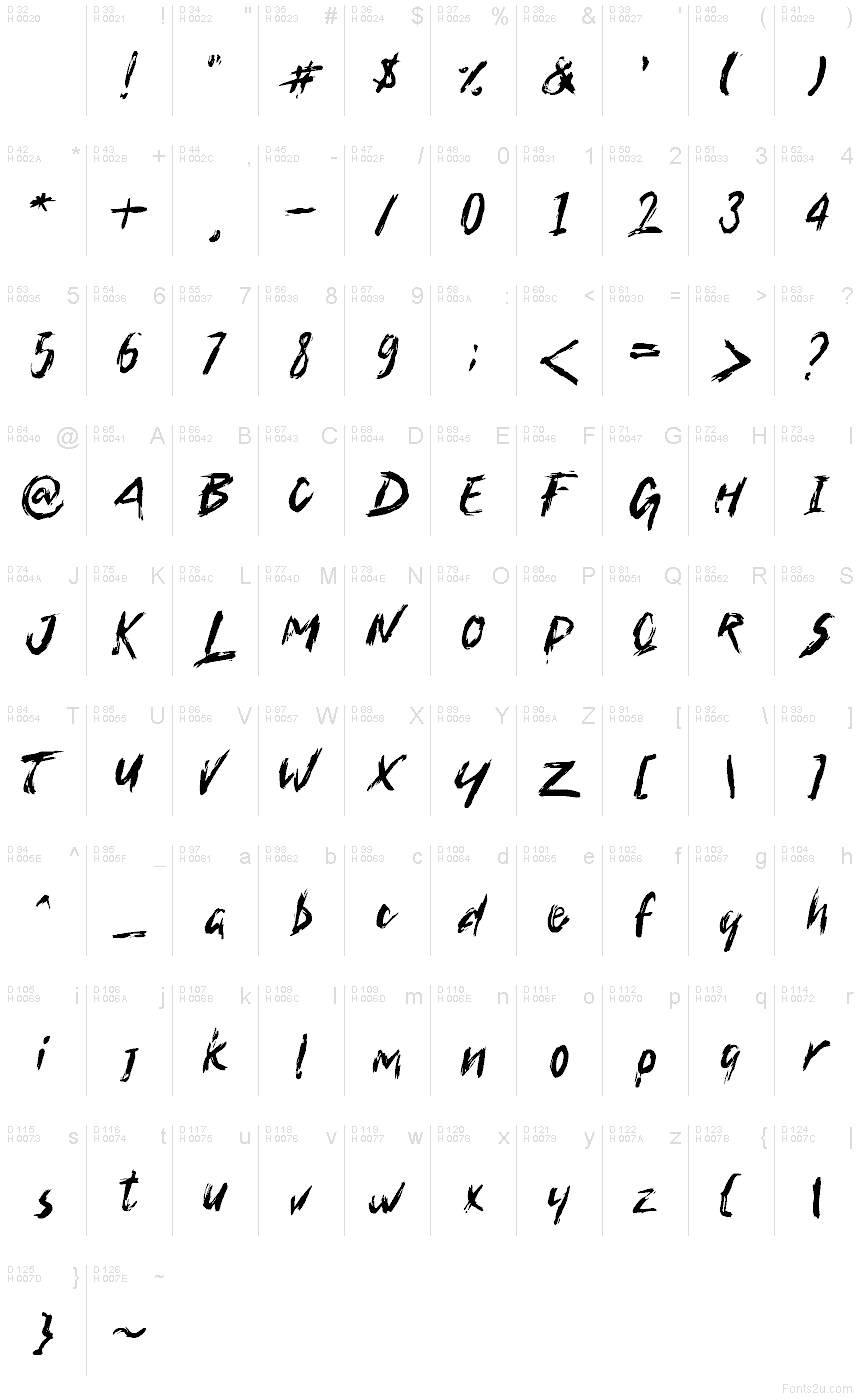
BAMBOO BRUSH
Bamboo brush font by Excellent Ritma Florendia is a free bold brush display font built around raw, slashed strokes that look freshly dragged from an inky well. Each letter lands with splintered edges, bristle streaks, and quick, angular motion—high energy without turning into noise. The texture feels gritty and hand-cut, giving headlines a loud, human snap while keeping forms readable at a glance.
This free font shines on streetwear logos, action posters, music covers, sports branding, edgy packaging, and event flyers. Using Bamboo brush at oversized headline sizes amplifies the frayed detail and rhythm. For balance, pair it with a clean condensed sans for body copy, and tighten tracking slightly to lock the brushy shapes together.